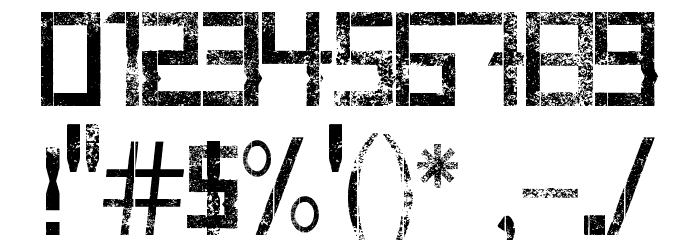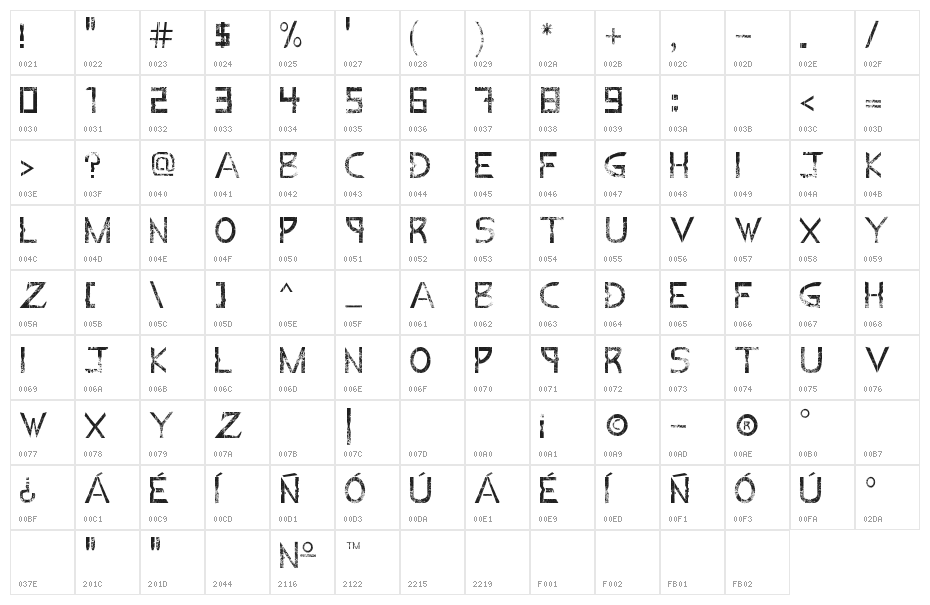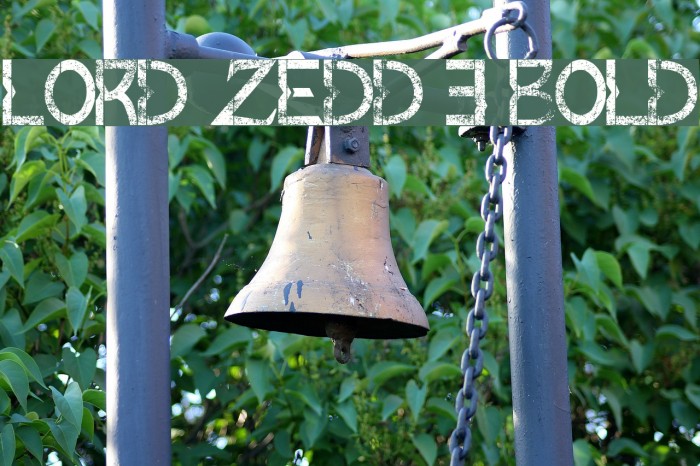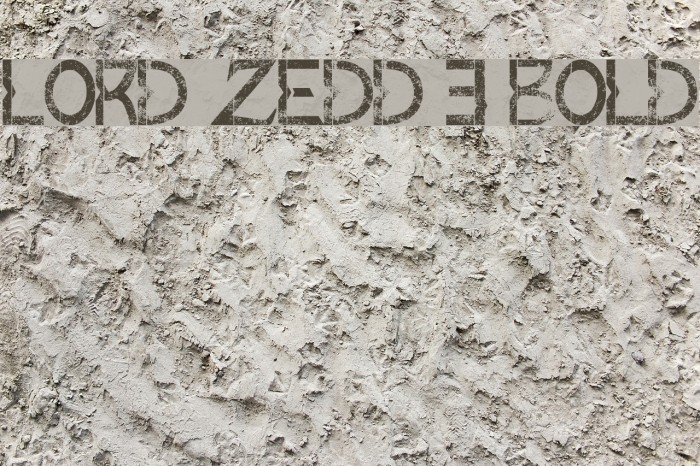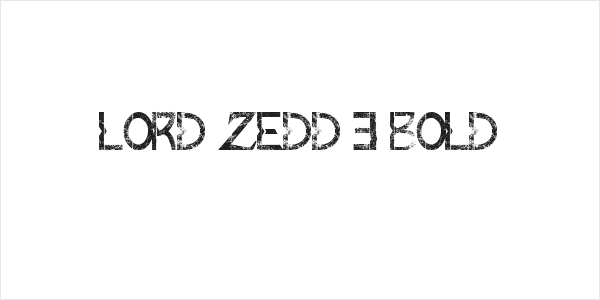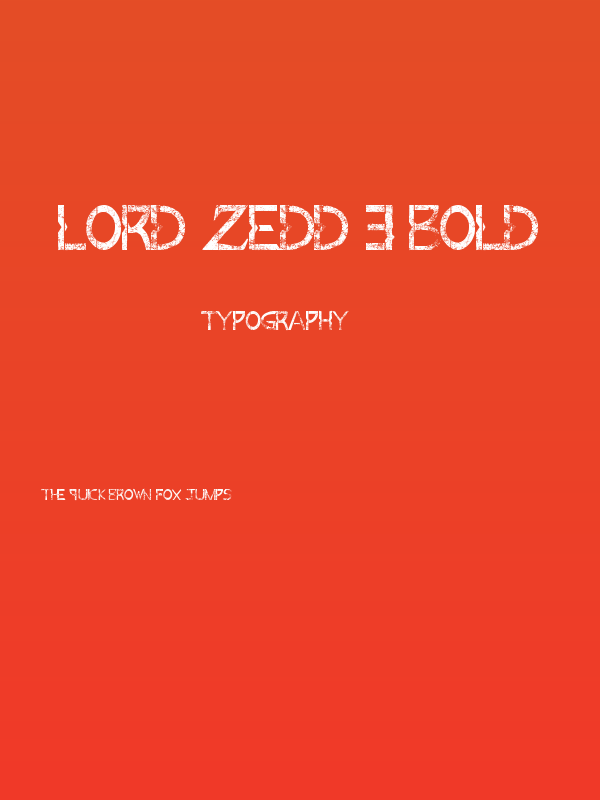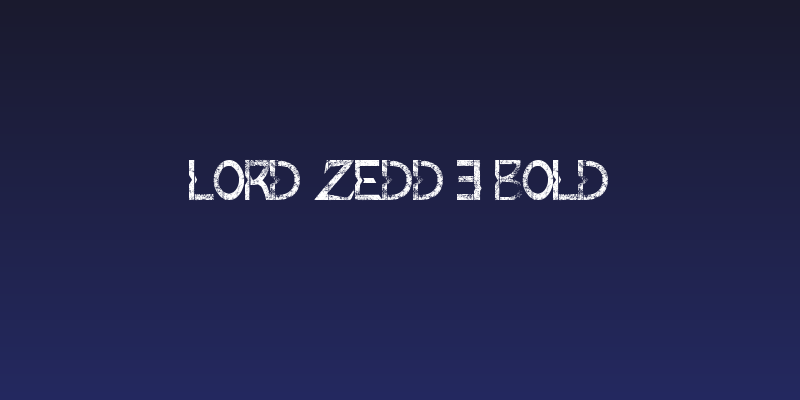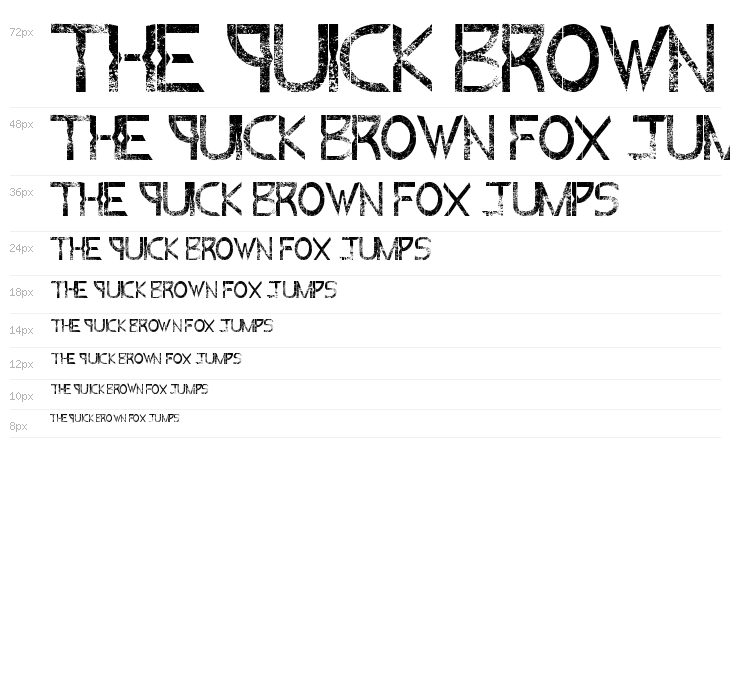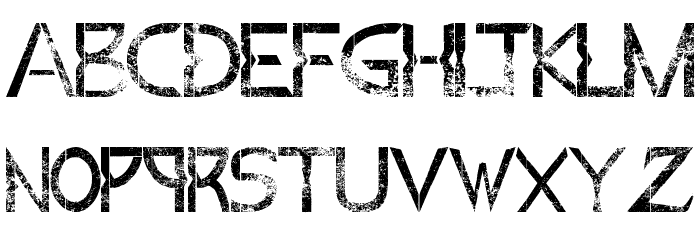
Lord ZeDD 3 Bold Font
Lord ZeDD 3 Bold Description
This font features a bold, distressed style with a gritty, textured appearance. The characters are blocky and geometric, with sharp angles and a rugged, worn-out look that gives it a vintage, industrial feel. The uppercase and lowercase letters maintain a consistent design, while the numbers and special characters follow the same distressed pattern, adding to the cohesive aesthetic. The font's unique style makes it stand out, perfect for projects that require a bold statement or an edgy, urban vibe.
| Overall Style | Vintage, Industrial |
| Proposed Projects | Ideal for posters, album covers, branding for edgy or urban-themed projects, and any design requiring a bold, standout typeface. |